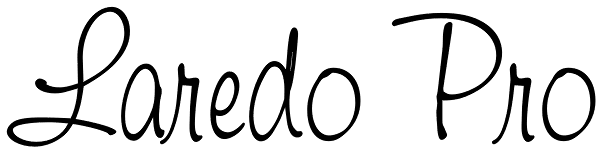
Laredo Pro
Laredo is another handwriting font family designed at the profonts studio. It is an upright, peppy and dynamic design. Its liveliness results from its handwriting character which is further strengthened by the varying stroke width and several very...